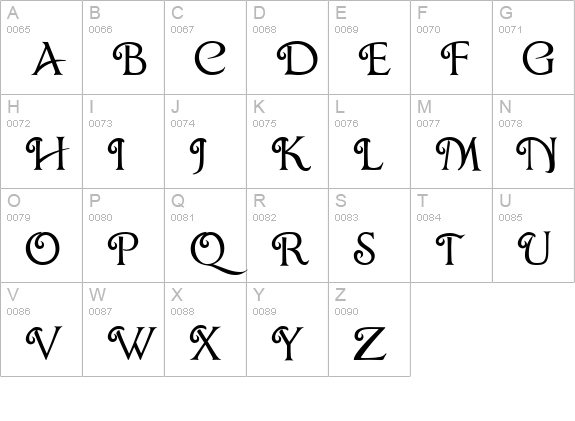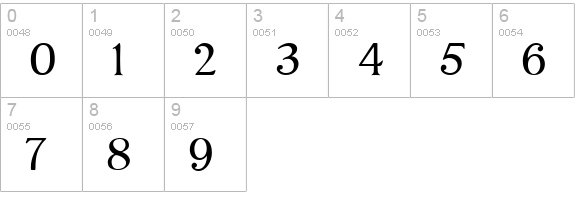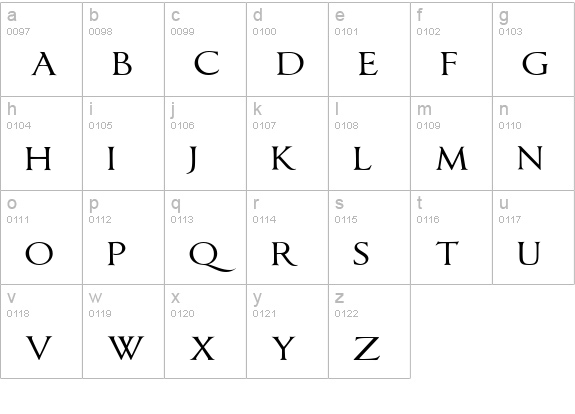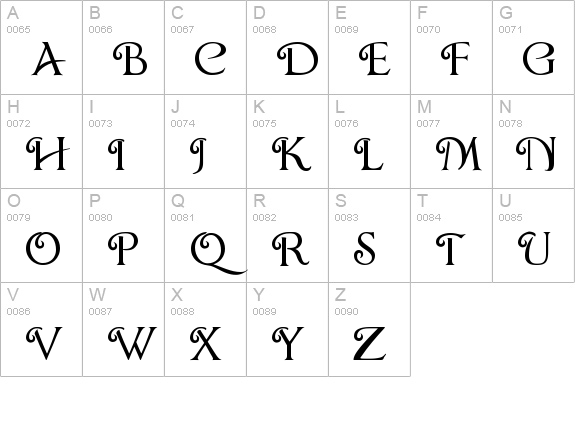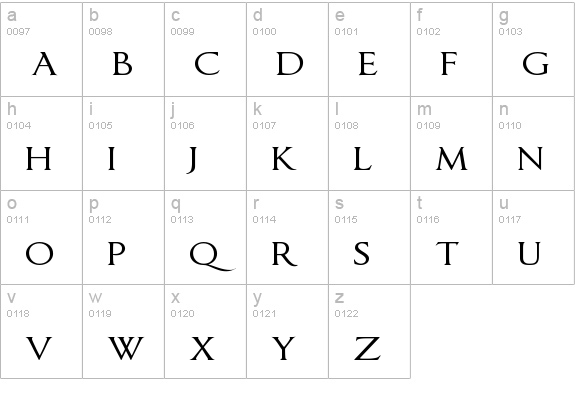
ChocolateBox Font Details
Introducing ChocolateBox font, a delightful and whimsical typeface that will add a touch of sweetness to your design projects. This charming font features playful curves and a handwritten style that evokes the feeling of opening a box of delectable chocolates. ChocolateBox font is perfect for creating eye-catching headlines, invitations, greeting cards, and more. Whether you're working on a project for a special occasion or simply want to add a fun and unique touch to your designs, this font is sure to impress. The best part? ChocolateBox font is completely free to download at FontsMarket.com. Simply visit the website, download the font, and start using it in your projects right away. Don't miss out on this sweet opportunity to enhance your designs with the deliciously delightful ChocolateBox font.